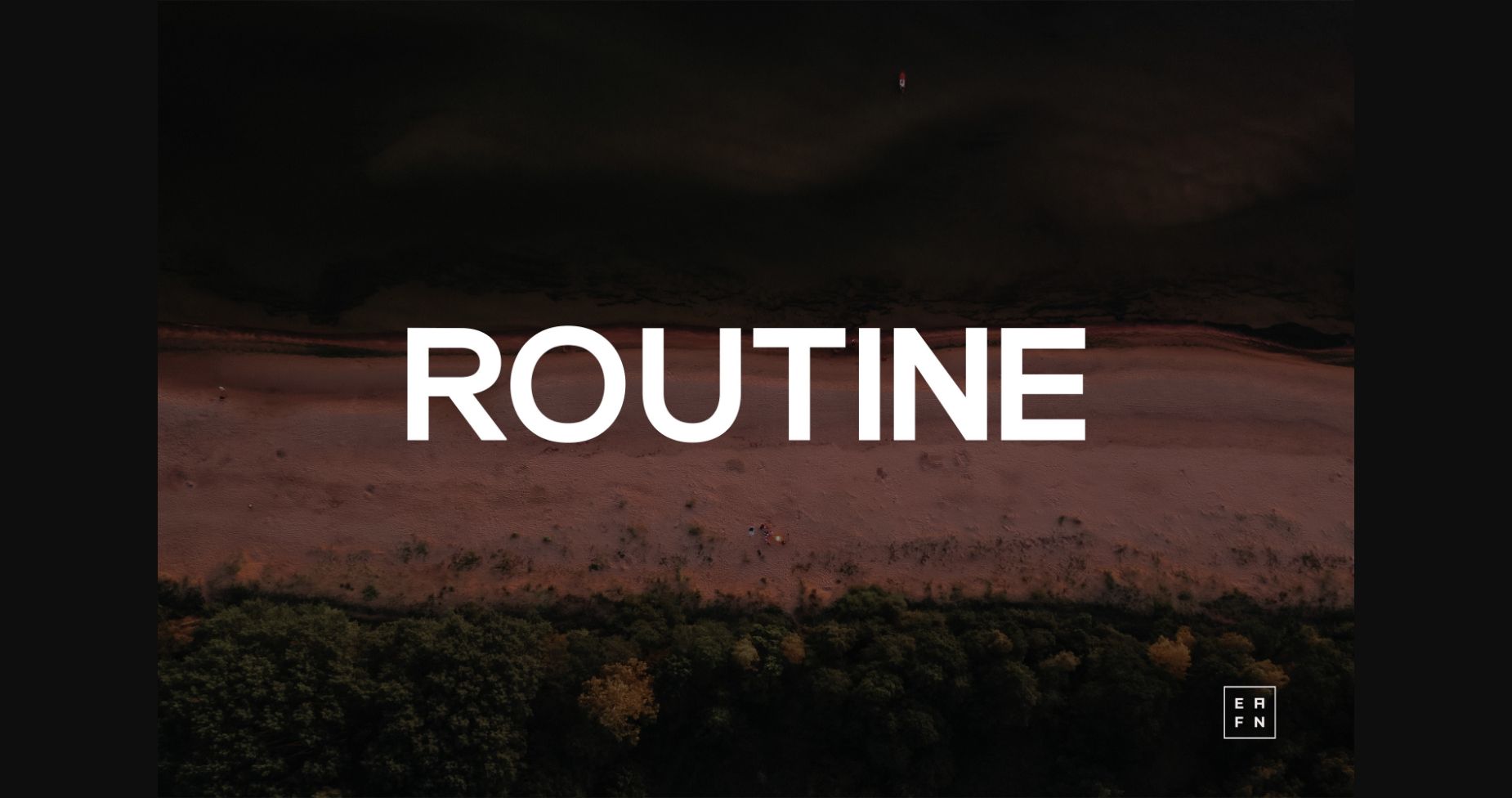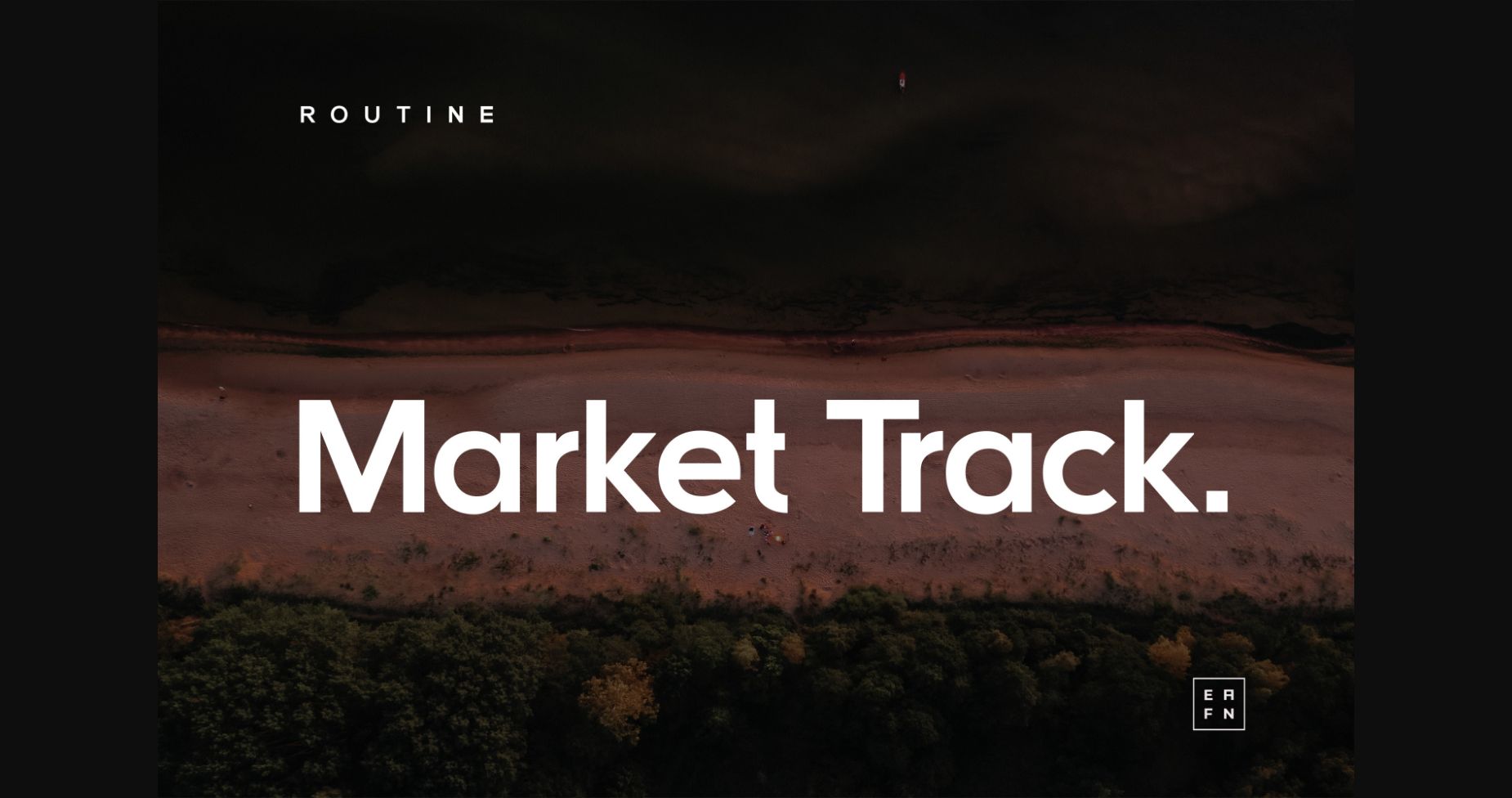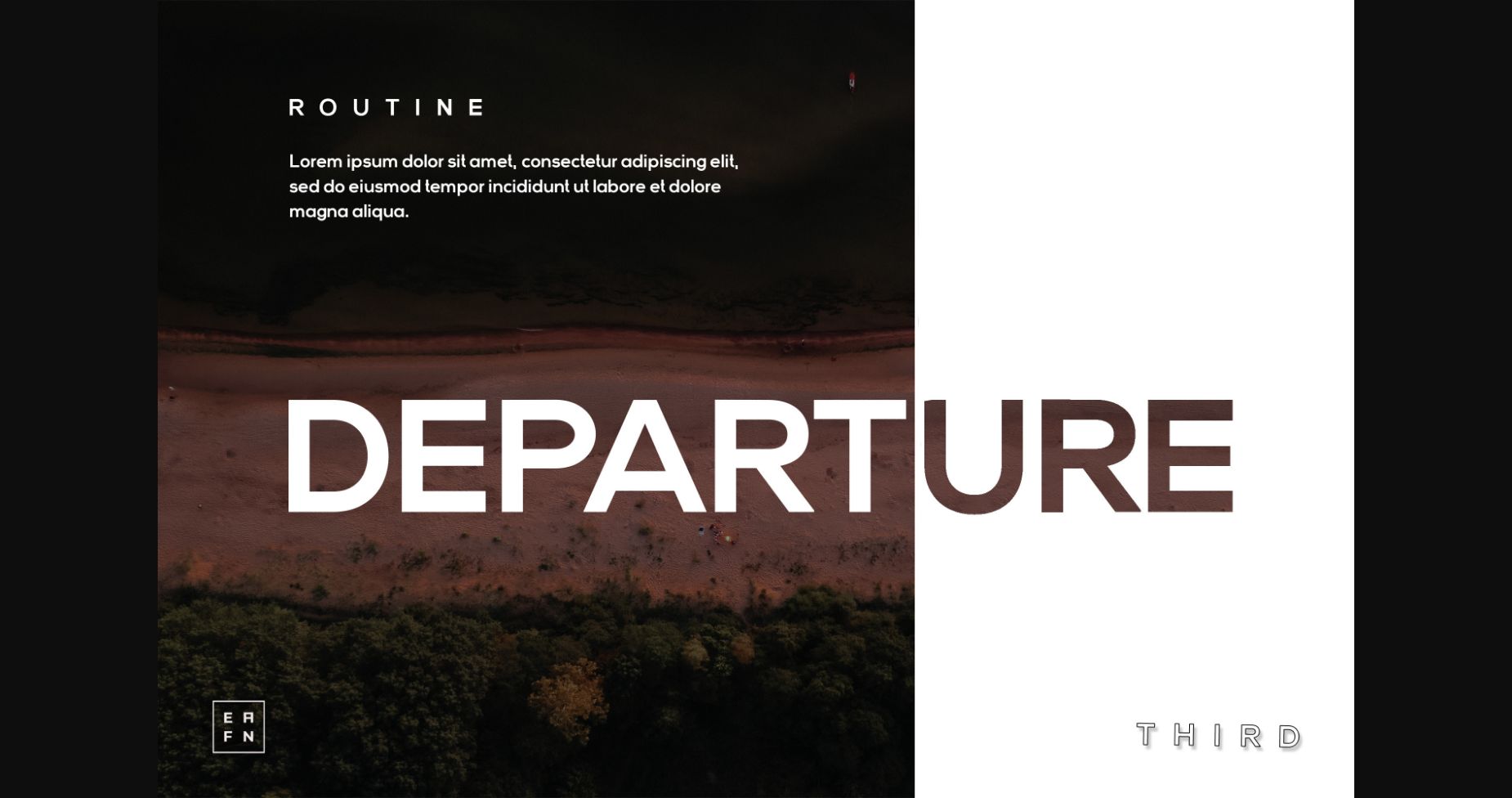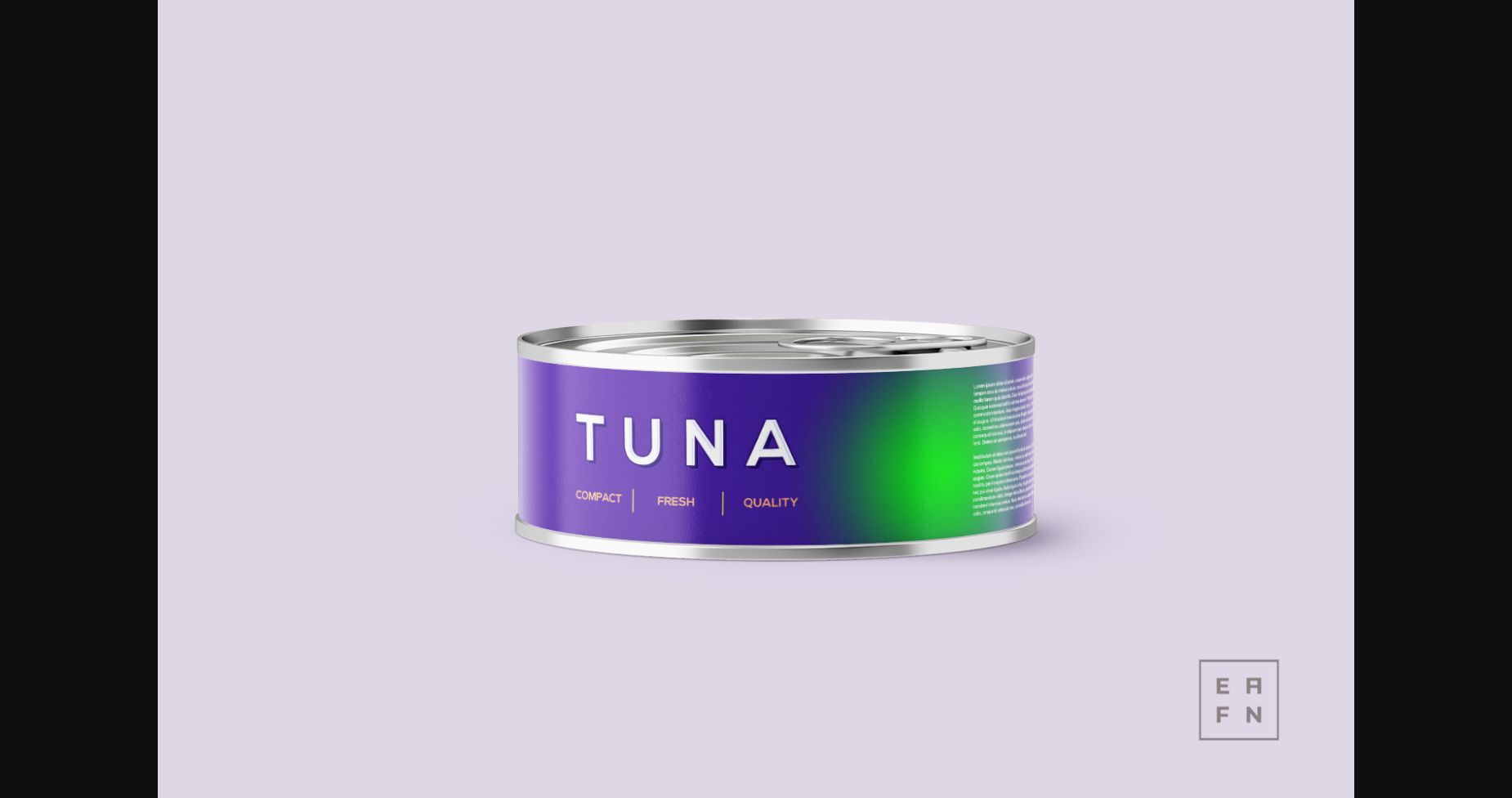
HomeSans Serif FontsRoutine Font Sans Serif Fonts Routine Font FacebookXPinterestWhatsApp 1 of 6 ... Routine Font Poster 2... Routine Font Poster 3... Routine Font Poster 4... Routine Font Poster 5... Routine Font Poster 6... About Routine Font Routine is a simple and elegant sans serif font. Fall in love with its incredibly versatile style and use it to create spectacular designs! DOWNLOAD NOW People also explored Mister Overthink Font Charlotte Font Bohema Spirit Font Keista Heather Font Counter Ropwells Font Ecology and Environment Protection Font Secret Recipe Jimuella – Modern Casual Script Coconuts Font 375 0 TagsRoutineRoutine Font Previous articleRaspberry FontNext articleStronger Font LEAVE A REPLY Cancel reply Comment: Please enter your comment! Name:* Please enter your name here Email:* You have entered an incorrect email address! Please enter your email address here Website: Save my name, email, and website in this browser for the next time I comment. Personal Use Free Hunting Font Personal Use Free Read more about this font Unsteady Overseer Personal Use Free Read more about this font Lightning Script Personal Use Free Read more about this font Broodfath Personal Use Free Read more about this font BLOG Modern Sans-Serif Fonts That Brands Love in 2025 In 2025, modern sans-serif fonts remain a top choice for brands looking to project clarity, professionalism, and... Where to Buy American Fonts Online in 2024 Exploring Font Trends Using Fonts in Digital Marketing: Tips to Strengthen Your Brand Identity